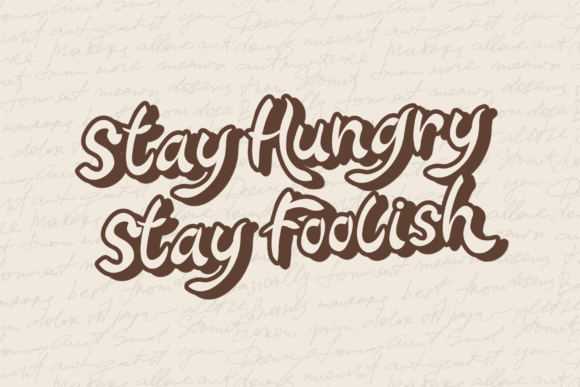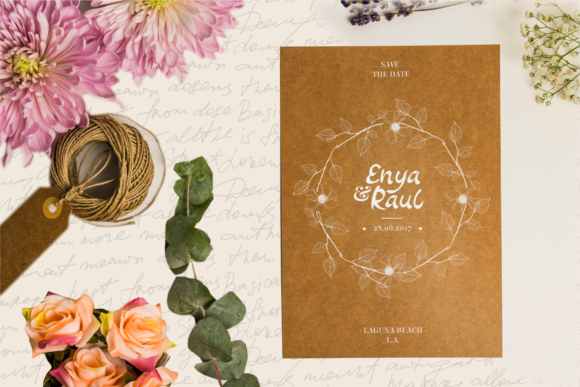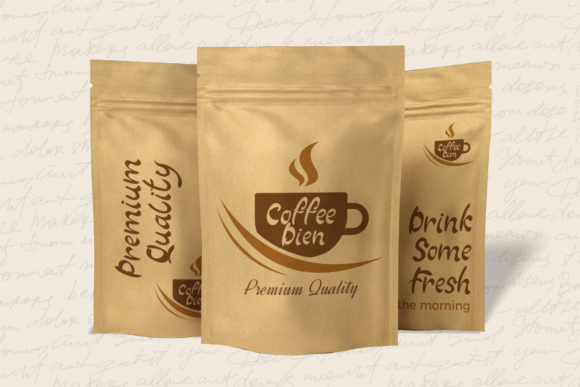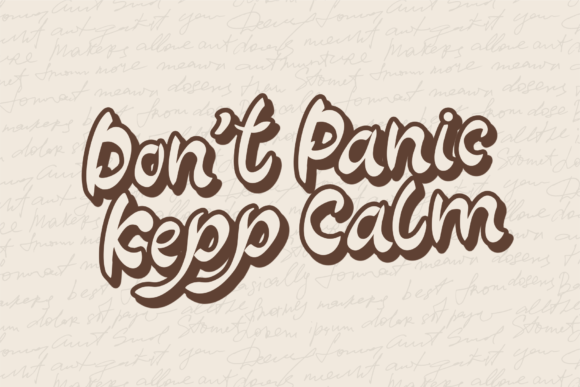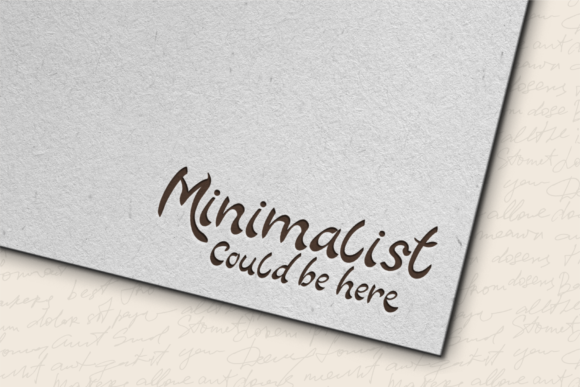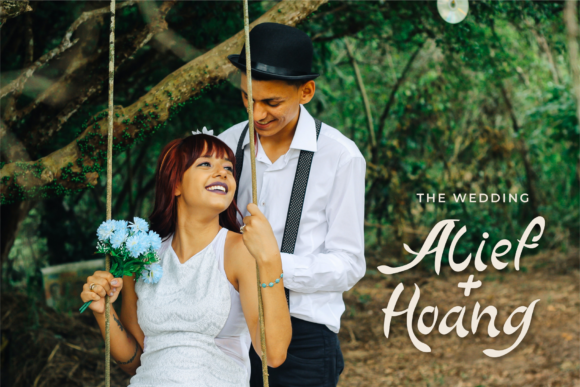
Introduction to Gathira Font
Do you remember the moment when you first laid eyes on a beautifully crafted wedding invitation or a stunning piece of typography? For many designers, that moment sparks a sense of creativity and inspiration. As a designer, you know the importance of having a reliable design resource that can elevate your projects to the next level.
That’s where the Gathira Font comes in – a stunning script font that exudes elegance and sophistication. With its contemporary atmosphere and impeccable form, this font is perfect for designers who crave a high-quality typography solution that can add a touch of class to their creative projects. Whether you’re working on a branding project, a wedding invitation, or a social media graphic, the Gathira Font is sure to make a lasting impression.
And the best part? The Gathira Font is available for free download, making it an accessible and valuable resource for designers of all levels. With a transparent background and a range of versatile styles, this font is perfect for adding a touch of sophistication to any creative project.
Key Features of Gathira Font
- Comes with a transparent background, allowing for seamless integration with any design.
- Features a unique, modern design that can elevate any visual project.
- Perfect for use in logos, branding materials, and other creative projects that demand a high level of visual sophistication.
Honest Review: Gathira Font
I recently had the chance to work with the Gathira Font for a creative project and I must say, it’s a solid addition to any design resource collection. One of the standout features is its high quality, which is evident in the crisp lines and smooth curves.
- ✨ Clean design: The Gathira Font is perfect for projects that require a clean and minimalist aesthetic.
However, I did encounter a few limitations while using the Gathira Font. For instance, ⚠️ the font doesn’t support many languages, which could be a problem for projects that require multilingual support. Additionally, ⚠️ the font file size is relatively large, which might be a concern for designers who need to optimize their files for web use.
Overall, I’m impressed with the Gathira Font and would recommend it for creative projects that require a clean and modern aesthetic. While it has some limitations, its high quality and free download make it a valuable addition to any design resource collection.
For the best results, use the Gathira Font on a transparent background to ensure maximum flexibility. You can also experiment with different font sizes, colors, and styles to create a unique look. Additionally, consider combining the Gathira Font with other design elements, such as images and graphics, to create a visually appealing design.
Common Use Cases for Gathira Font
The Gathira Font is a versatile design resource that can be used for a variety of projects, including logos, business cards, brochures, and social media graphics. Its high-quality design and transparent background make it an ideal choice for creative professionals and hobbyists alike.